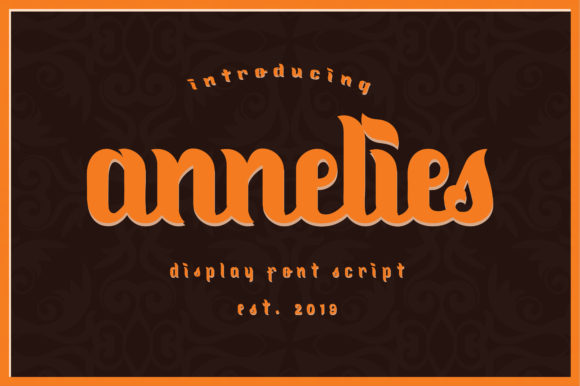
Introducing Annelies Font: A Captivating Display Font with Bold Character and Timeless Grace
In the realm of captivating display fonts, Annelies Font stands tall as a beacon of creativity and visual delight. Its bold character and timeless grace evoke a sense of elegance and sophistication, making it the perfect choice for designers and typography enthusiasts seeking to create truly exceptional projects.
Crafted by the renowned Libscript, Annelies is a font that tells a story. Its distinct style and alluring details embody the essence of passion, artistry, and innovation. With its two unique styles – one exuding a classic charm, the other radiating a modern flair – Annelies offers versatility that caters to a wide range of design needs.
As a display font, Annelies excels in capturing attention and conveying messages with impact. Its bold strokes and sharp edges command presence, making it an ideal choice for headlines, titles, posters, and logos. The classic style, with its delicate serifs and flowing curves, lends a touch of timeless elegance to any project. The modern style, with its clean lines and geometric accents, adds a contemporary edge that resonates with today's design sensibilities.
The versatility of Annelies Font extends beyond its striking appearance. Its ability to effortlessly blend with other design elements makes it a true chameleon in the world of typography. Whether paired with vibrant colors or subtle hues, Annelies adapts seamlessly, enhancing the overall design without overpowering it.
Step into the world of Annelies Font and discover a treasure trove of creative possibilities. Its bold character and timeless grace will elevate your designs to new heights, leaving a lasting impression on your audience.